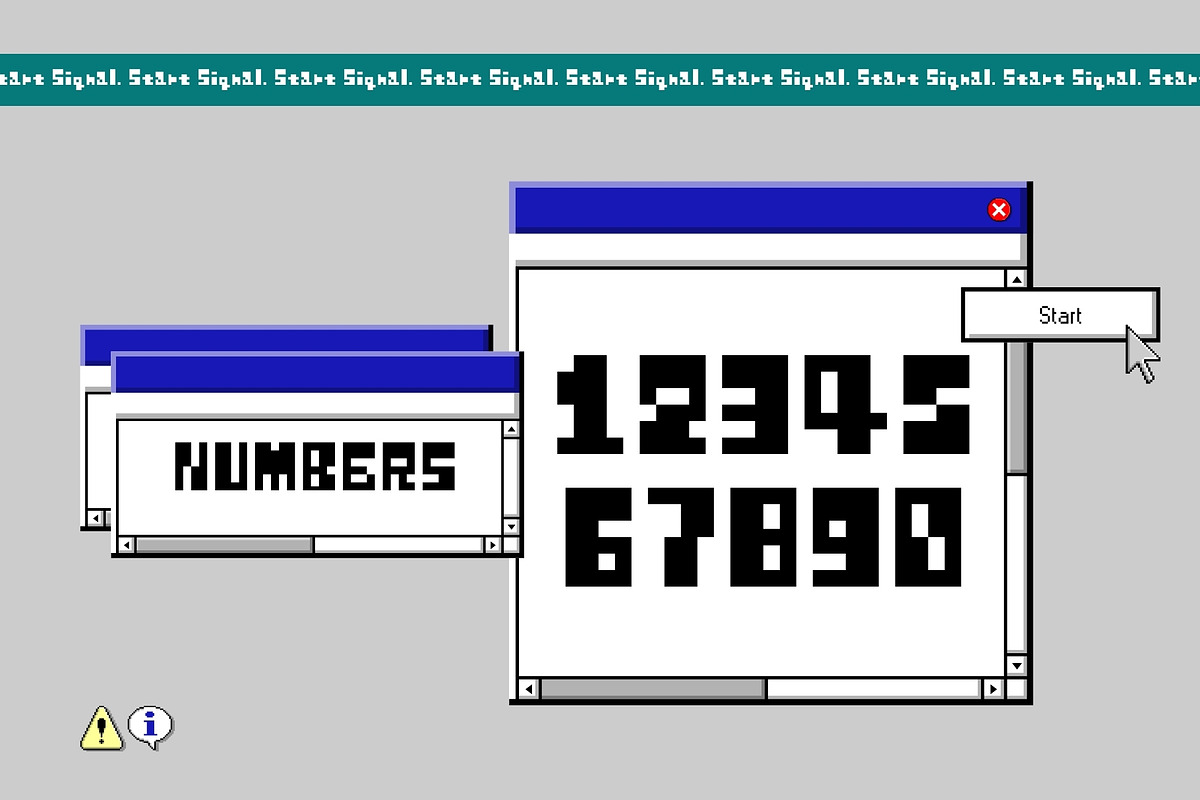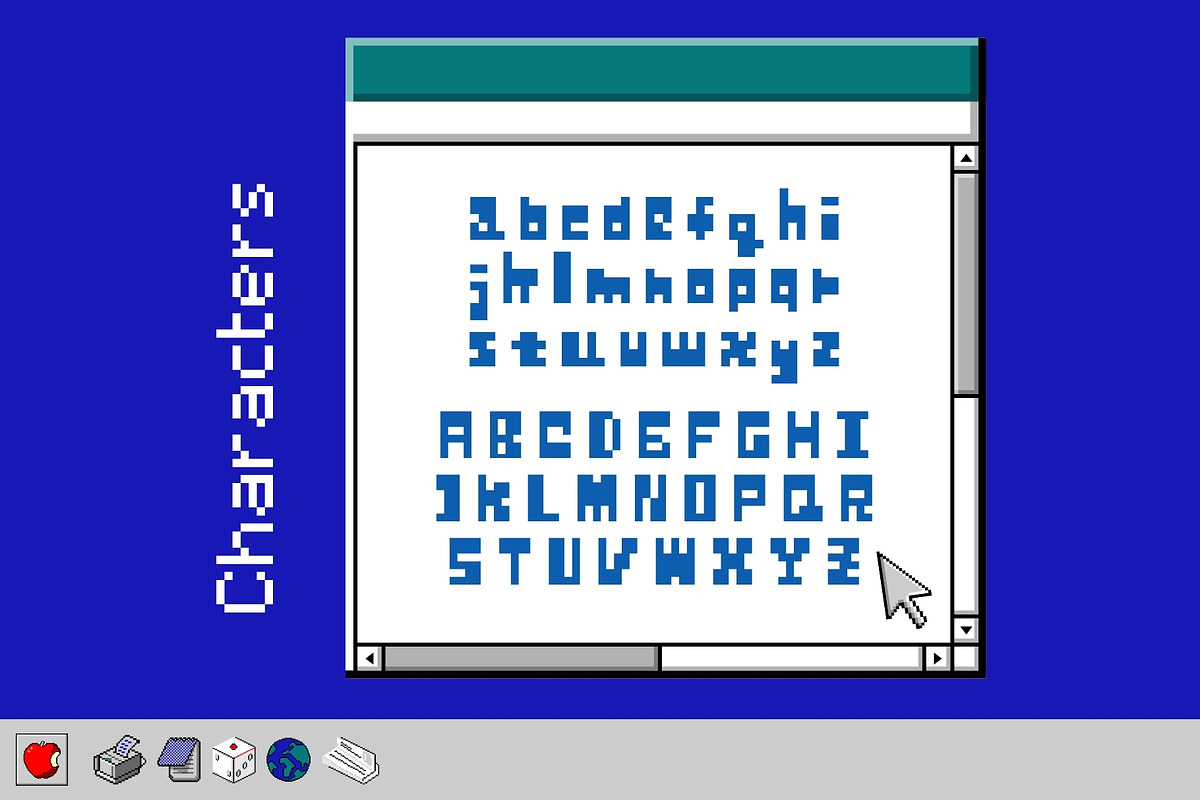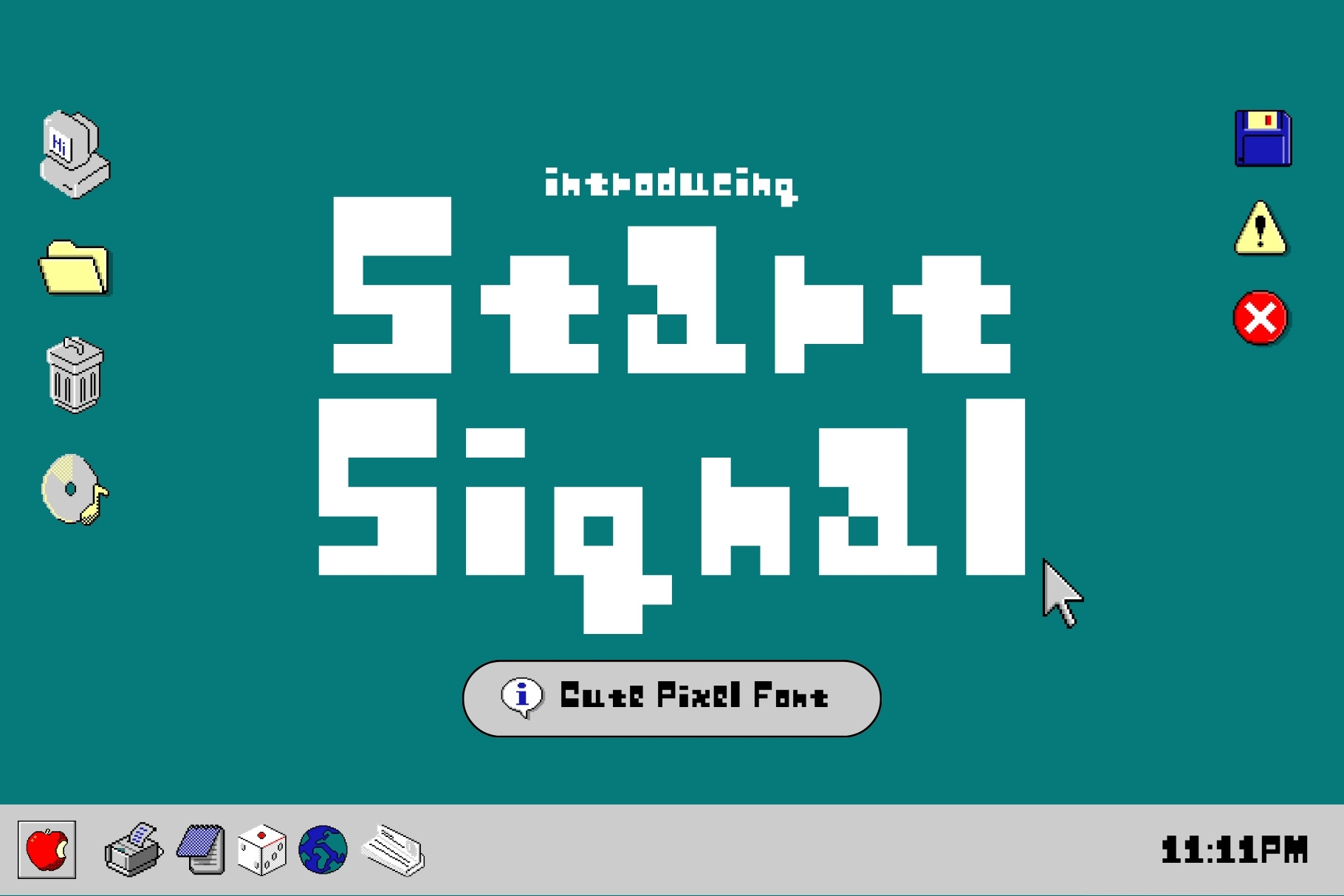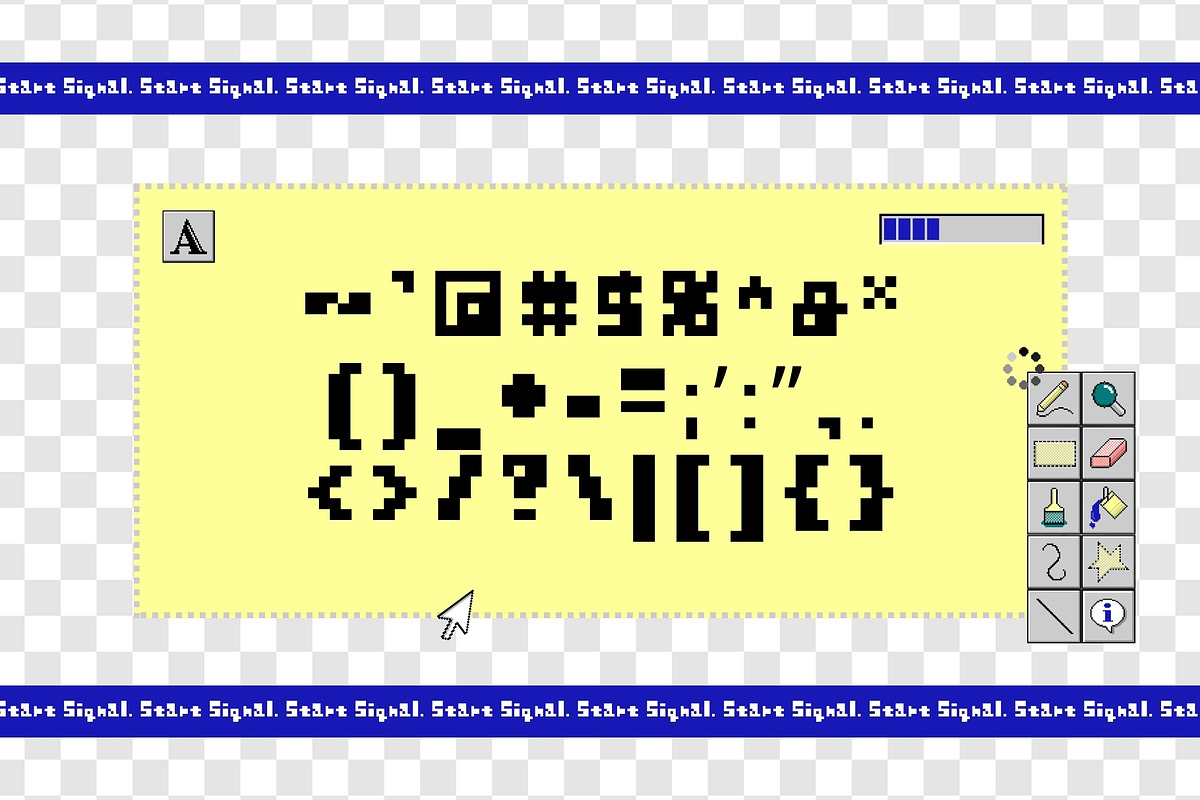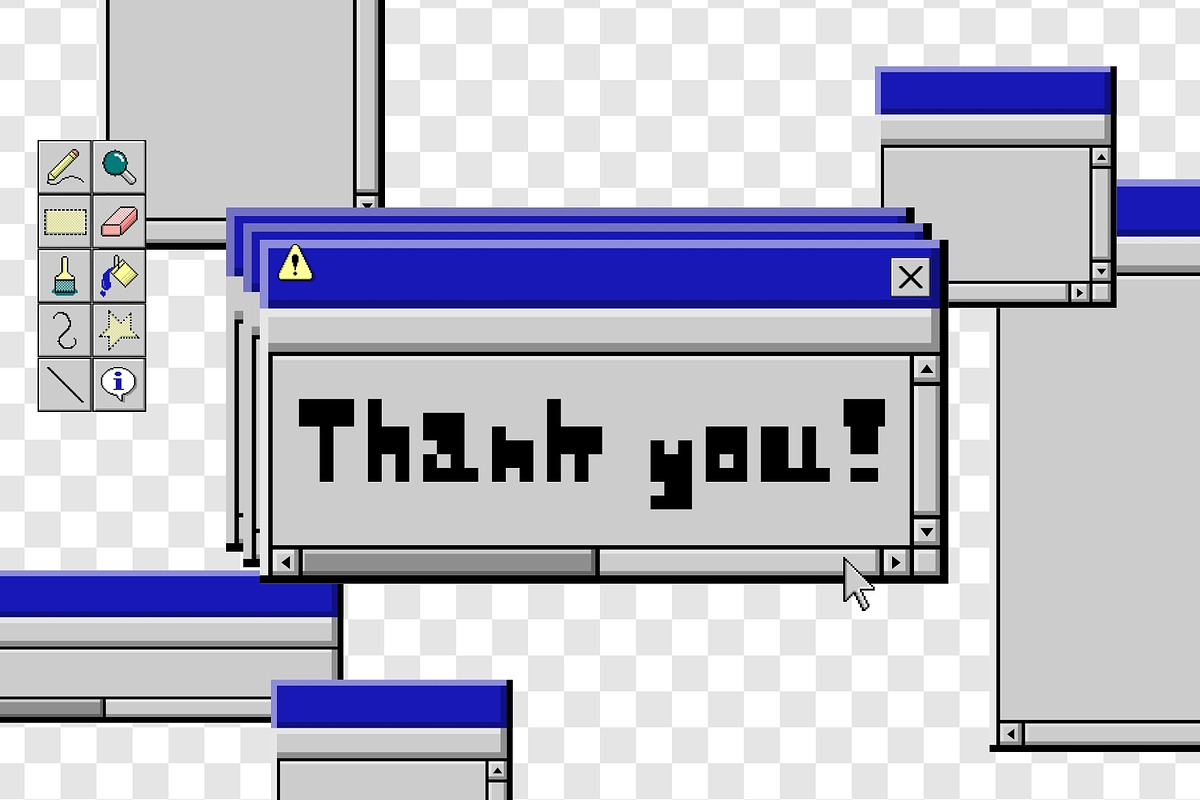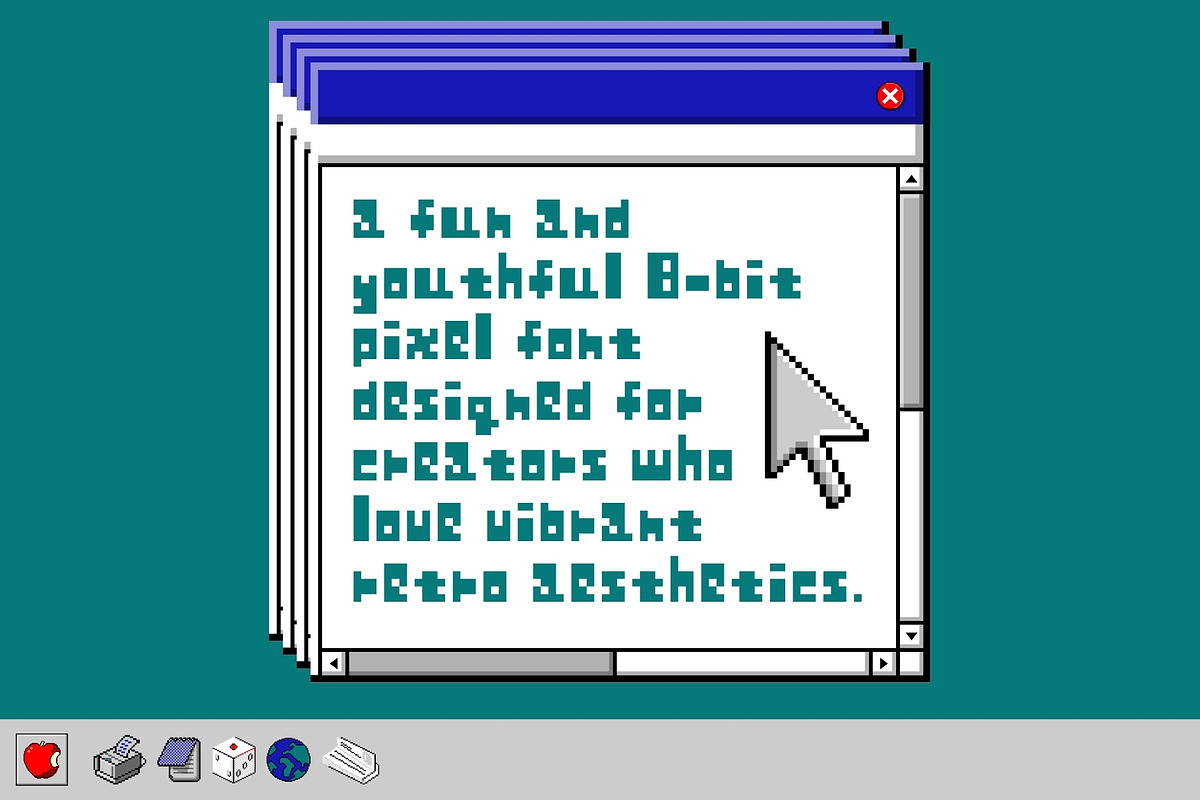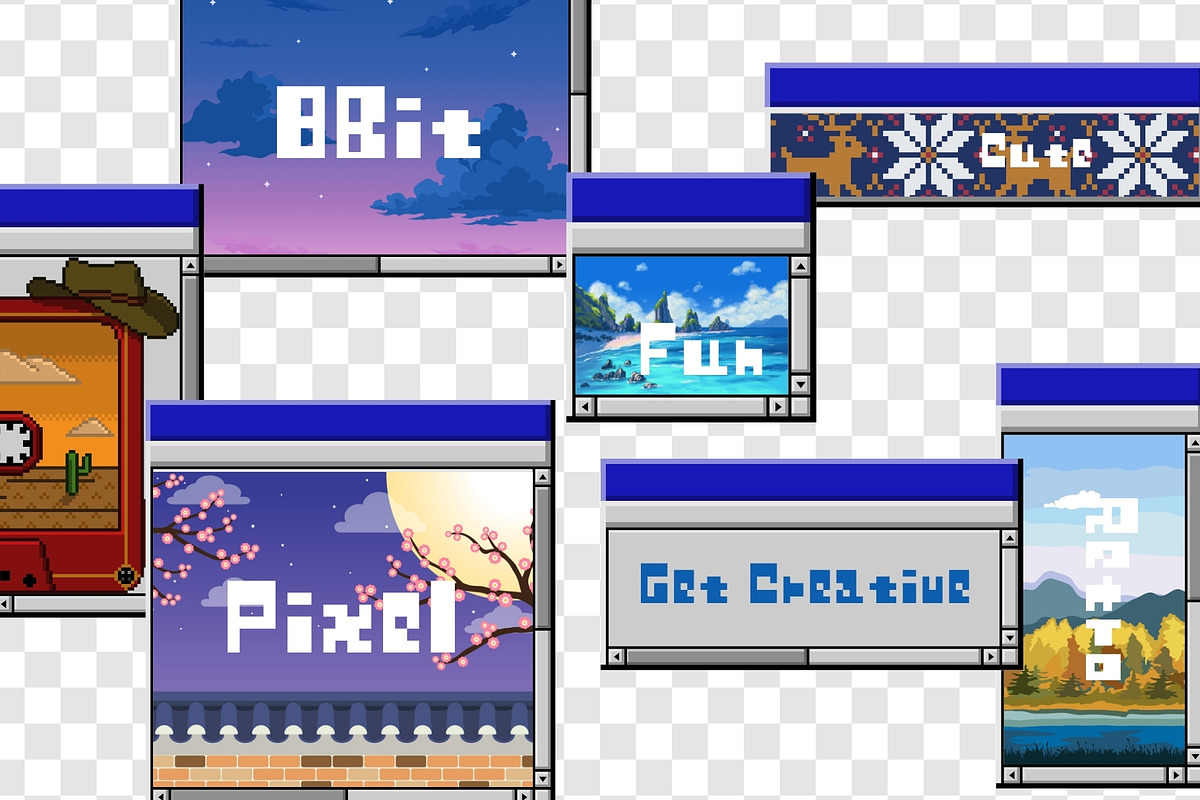
Start Signal - Cute Pixel Font
Start Signal is a fun and youthful 8-bit pixel font designed for creators who love vibrant retro aesthetics. With crisp pixel edges, playful character shapes, and an energetic digital personality, this font brings classic arcade charm into modern pixel-styled projects. Perfect for gaming graphics, YouTube thumbnails, app interfaces, posters, stickers, merch, and bright digital branding, Start Signal is built to stand out with bold simplicity and nostalgic flair.
Whether you're designing game titles, retro UI, pixel art captions, or fun creative content, Start Signal makes every word feel lively, dynamic, and full of gaming spirit. It’s clean, readable, and packed with charm, the ideal typeface for anyone looking to spark excitement with a pixel-perfect touch.